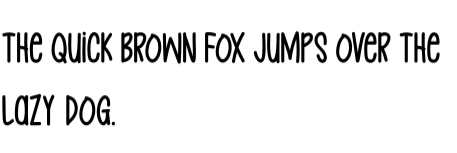
Easter Wonder Font: A Cheerful and Whimsical Handwritten Display Font
Easter Wonder is a delightful and charming handwritten display font that brings a sense of warmth and playfulness to your designs. This cheerful font is perfect for a variety of creative endeavors, including logos, stationery, t-shirt prints, and other paper-based projects. In this article, we’ll explore the features and benefits of Easter Wonder, and how it can add a touch of whimsy to your visuals.
What is Easter Wonder Font?
Easter Wonder is a handwritten display font that exudes a sense of joy and playfulness. Its whimsical and cheerful design makes it perfect for adding a personal touch to your designs. The font features flowing lines, rounded edges, and a carefree spirit that makes it ideal for a wide range of creative projects.
Key Features of Easter Wonder Font
- Cheerful and Whimsical Design: Easter Wonder features a playful and charming design that adds a touch of warmth to your visuals.
- Handwritten Display Font: The font’s handwritten style gives it a personal and unique feel that’s perfect for a variety of creative projects.
- Versatile and Adaptable: Easter Wonder is suitable for both digital and print designs, making it an excellent choice for a wide range of applications.
- Easy to Read: The font’s clear and legible design ensures that your message is conveyed clearly and effectively.
Ideal for a Variety of Creative Endeavors
Easter Wonder is an excellent choice for a wide range of creative projects, including:
- Logos: The font’s unique and playful design makes it perfect for creating memorable and eye-catching logos.
- Stationery: Easter Wonder adds a touch of whimsy to stationery designs, making them perfect for personal or business use.
- T-Shirt Prints: The font’s bold and playful design makes it ideal for creating eye-catching t-shirt prints.
- Website Headers: Easter Wonder adds a touch of personality to website headers, making them perfect for blogs, e-commerce sites, and more.
- Photo Frames: The font’s whimsical design makes it perfect for adding captions or quotes to photo frames.
- Promotional Flyers: Easter Wonder adds a touch of playfulness to promotional flyers, making them perfect for advertising events or products.
- Album Covers: The font’s unique design makes it ideal for creating eye-catching album covers.
Benefits of Using Easter Wonder Font
Using Easter Wonder font offers several benefits, including:
- Unique and Memorable Designs: The font’s playful and whimsical design helps create unique and memorable visuals.
- Time-Saving: Easter Wonder is a versatile font that can be used for a wide range of projects, saving you time and effort.
- Scalable: Easter Wonder is a scalable font that can be used for both digital and print designs.
Tips for Using Easter Wonder Font
Here are some tips for using Easter Wonder font:
- Experiment with Colors: Easter Wonder looks great in a variety of colors, so don’t be afraid to experiment and find the perfect color scheme for your design.
- Mix and Match Fonts: Easter Wonder pairs well with other fonts, so try mixing and matching it with other fonts to create a unique look.
- Use it for Headings: Easter Wonder is perfect for headings and titles, so use it to add a touch of whimsy to your designs.
- Add Texture and Patterns: Adding texture and patterns to your design can help enhance the font’s playful and whimsical feel.
Easter Wonder is a cheerful and whimsical handwritten display font that brings a sense of warmth and charm to your designs. Its versatility, adaptability, and ease of use make it an excellent choice for a wide range of creative endeavors. Whether you’re designing logos, stationery, t-shirt prints, or other paper-based projects, Easter Wonder adds a playful touch to your visuals. So why not give Easter Wonder a try and see how it can add a touch of whimsy to your designs?
- What is Easter Wonder font?: Easter Wonder is a handwritten display font that features a cheerful and whimsical design.
- What is Easter Wonder font used for?: Easter Wonder is ideal for a variety of creative endeavors, including logos, stationery, t-shirt prints, website headers, photo frames, promotional flyers, and album covers.
- Is Easter Wonder font easy to read?: Yes, Easter Wonder is a clear and legible font that ensures your message is conveyed clearly and effectively.